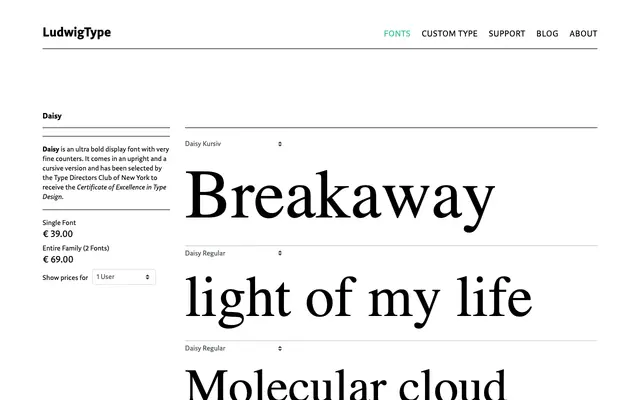
Daisy
A serif typeface from Ludwig comprising a Regular and a Kursiv companion, suited to text and editorial setting.
Daisy pairs a roman with a Kursiv italic, following a classical serif model appropriate for body text and book work. The specimen phrases suggest a lyrical, literary register rather than corporate or display use. Limited information is available from the page, but the two-style structure keeps the family focused and purposeful.
The presence of a Kursiv (italic) companion and the name Daisy suggest a text-oriented serif with traditional roman and italic styles; the pairing of a Regular and Kursiv points to a classical transitional or humanist serif structure.